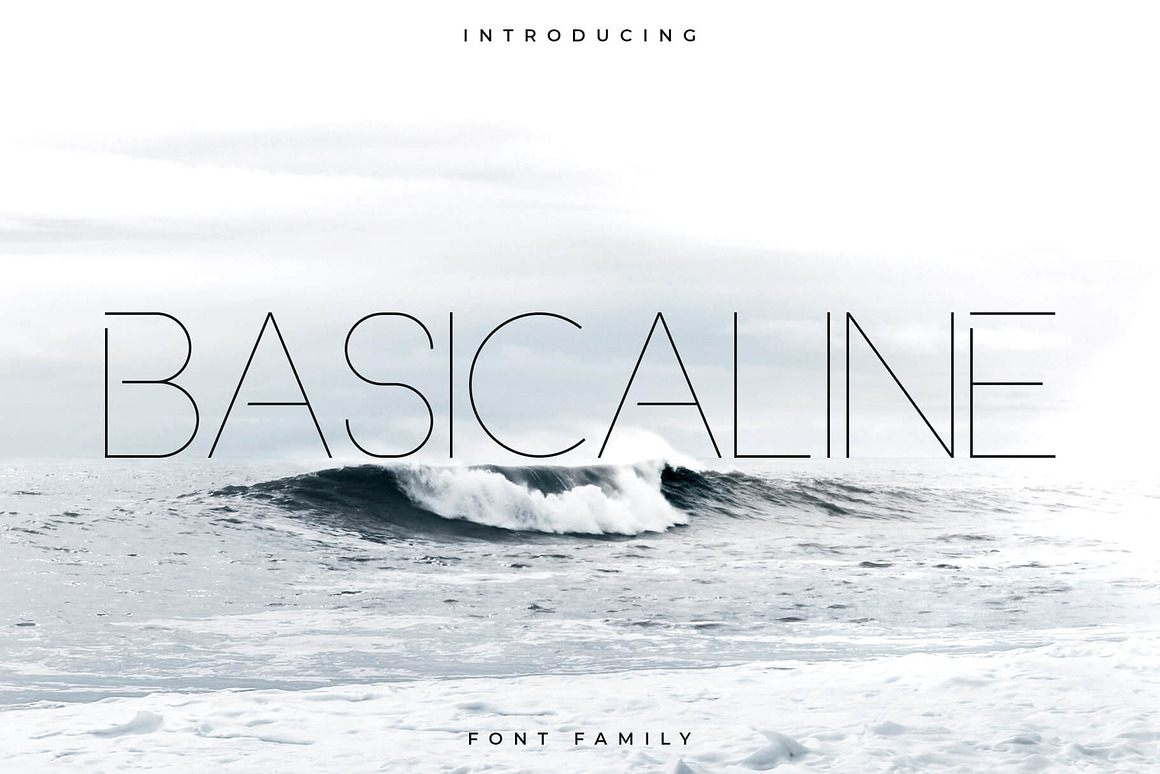
Basicaline Font Family - Sans Serif
Basicaline Font Family is perfect for corporate branding systems, professional document layouts, business communication materials, technical documentation, educational textbooks, comprehensive reports, versatile web typography, multi-language publications, standardized forms, and universal design applications.
What makes Basicaline Font Family so exciting is its exceptional ability to provide reliable typographic solutions across unlimited applications through a comprehensive family of letterforms that seem engineered for perfect functionality and universal accessibility. This fundamental typeface system captures the essence of typographic reliability and professional versatility with characters that deliver consistent performance across every possible design scenario. The font family's systematic design elements perfectly balance functional clarity with professional appeal, creating an indispensable toolkit that communicates competence, reliability, and design intelligence, making it essential for organizations and designers who need comprehensive typographic solutions that work flawlessly in any context or application.
Basicaline Font Family comes in multiple font families including Regular, Bold, Light, Italic, Bold Italic, Condensed, Extended, and Display variations. Each family member maintains the core systematic characteristics while offering different functional levels and stylistic approaches to suit comprehensive design system requirements across unlimited applications and contexts.
The systematic precision in Basicaline Font Family makes it particularly effective for large organizations and complex projects where maintaining typographic consistency across multiple designers, departments, and applications is crucial for professional brand integrity and communication effectiveness. Its comprehensive range works exceptionally well across all professional contexts, from internal corporate communications to public-facing marketing materials, maintaining consistent brand voice and professional presentation.
Corporate design professionals recognize how Basicaline Font Family transforms complex typographic challenges into streamlined design solutions that ensure consistent brand communication and professional presentation across unlimited applications and contexts. The font family's comprehensive character sets include extensive international language support, professional symbols, and systematic features that accommodate the most complex organizational requirements and global communication needs.
For creative professionals serving large corporations, educational institutions, and complex organizations, Basicaline Font Family serves as the ultimate foundation for establishing systematic visual identities that capture the essential qualities of professional reliability, design consistency, and typographic excellence that define successful organizations requiring comprehensive design systems that work flawlessly across every context.